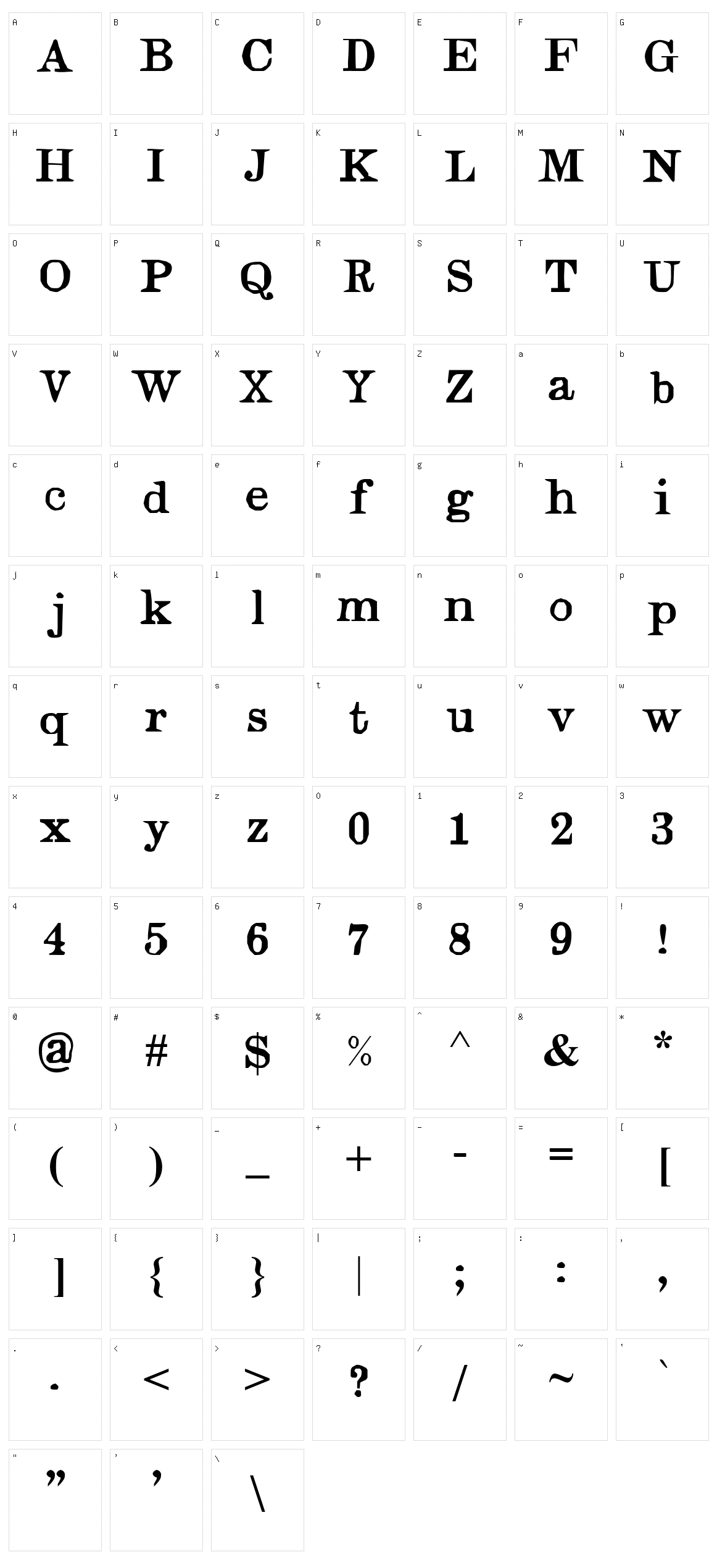
Judges Font
Judges is a text font based on an old book. I created this font using GIMP and FontLab Studio. Like all other JLH Fonts, this font is in the public domain and comes with the Euro sign. Small caps and old-style figures are now available in this font!